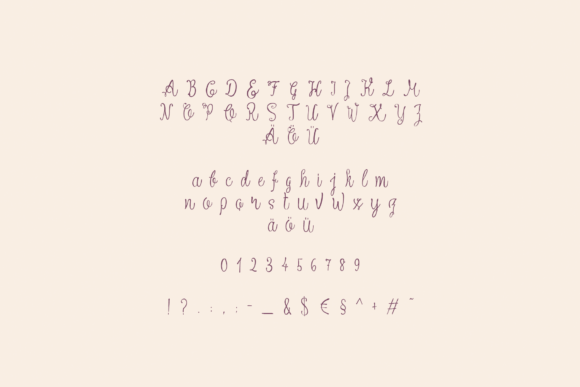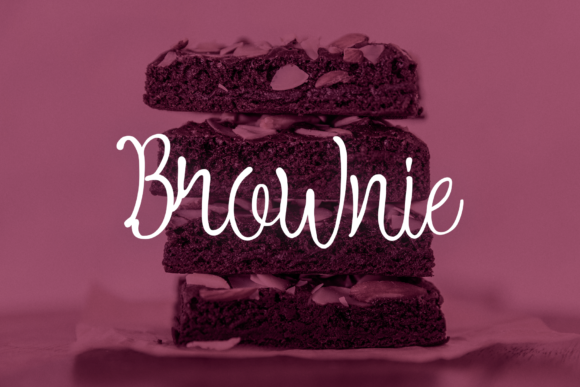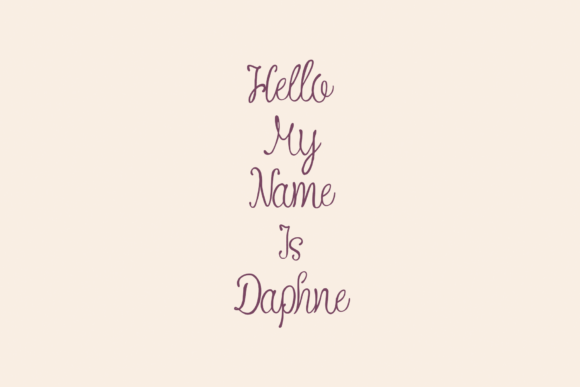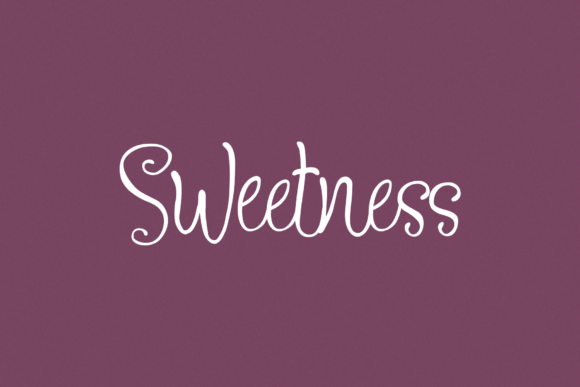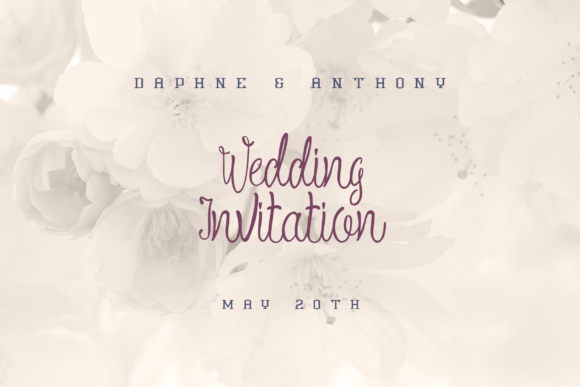
Daphne Font
About Daphne Font
The Daphne is a feminine and cheeky handwritten script. It’s perfect for logos, advertising, headlines and wedding invitations.